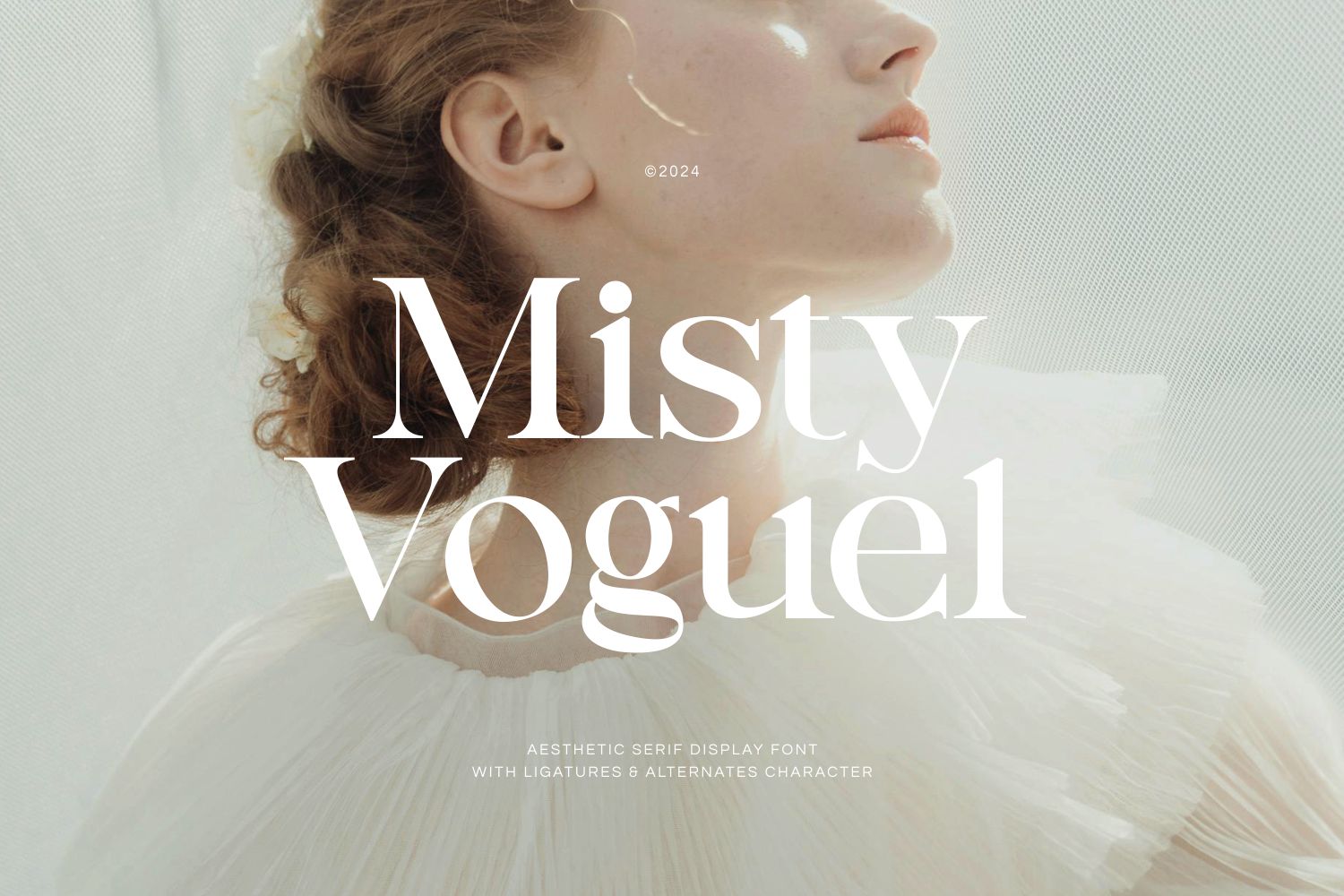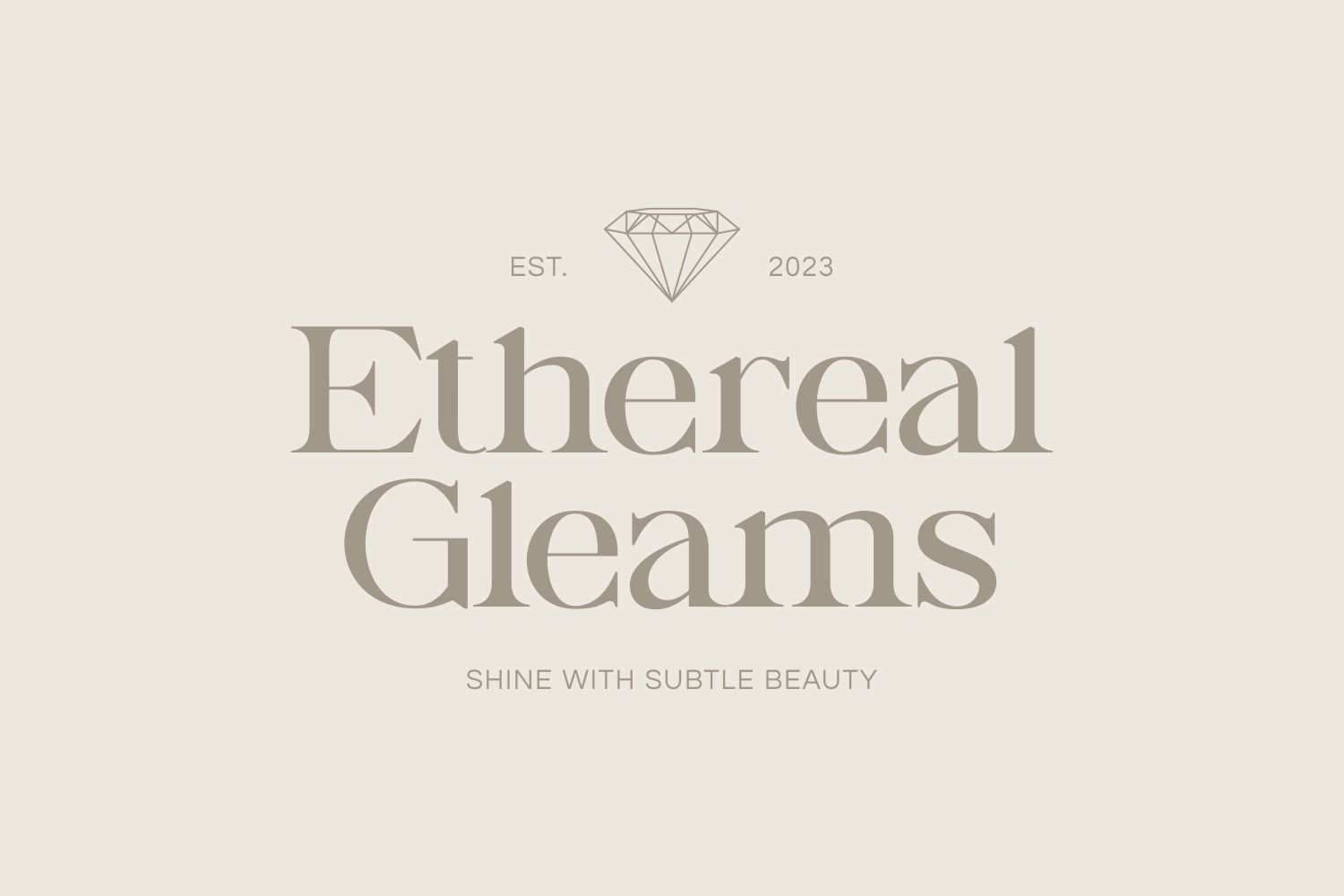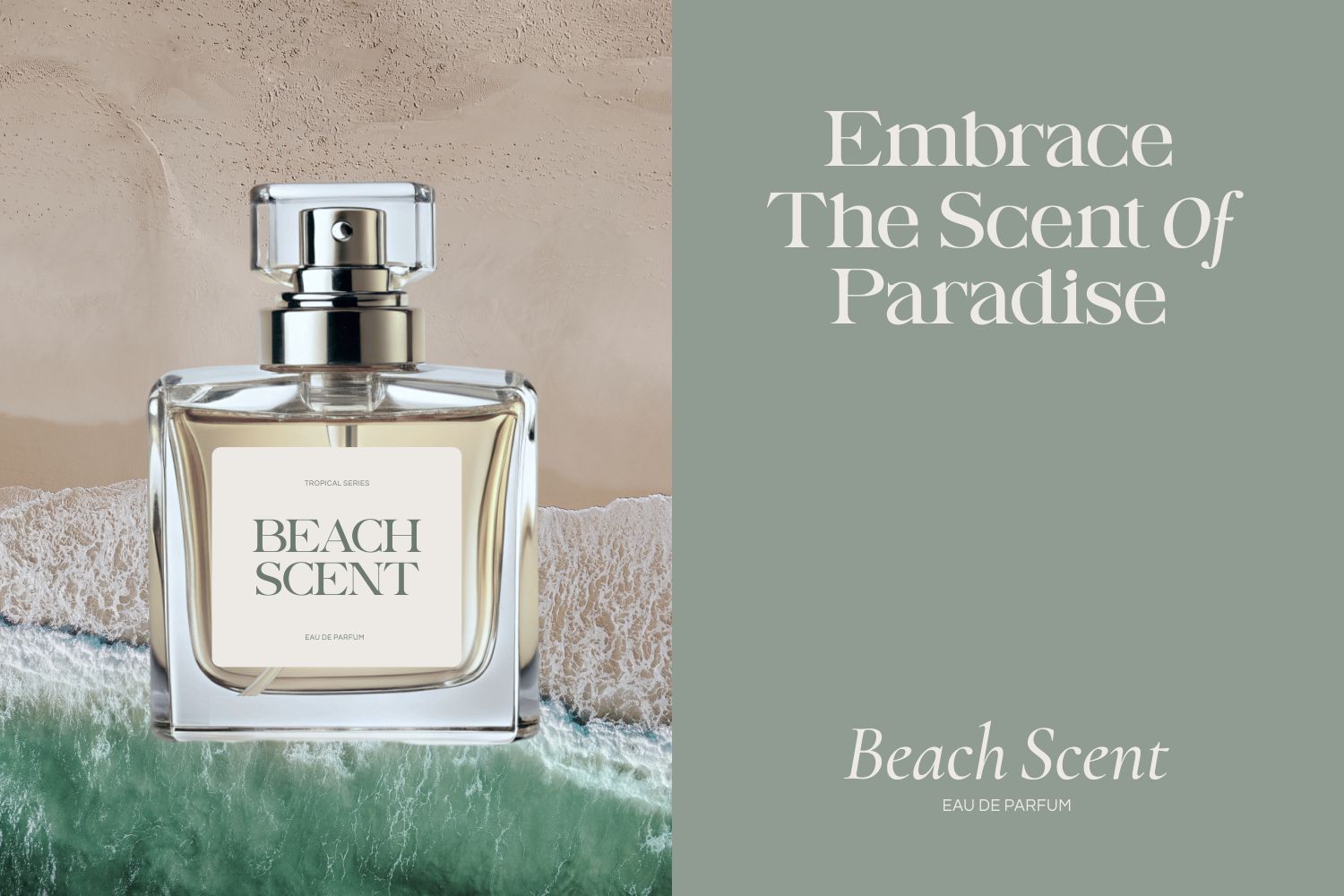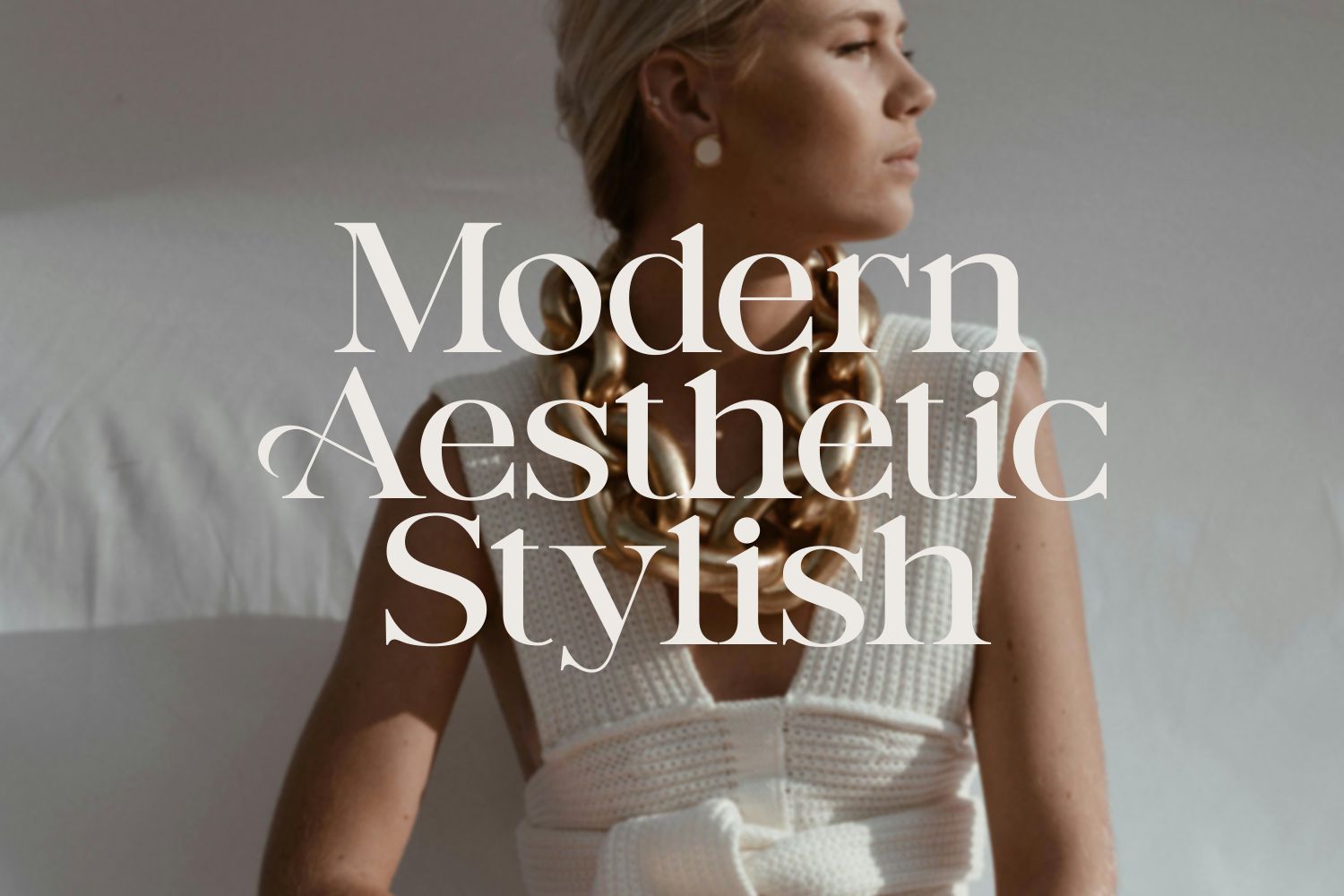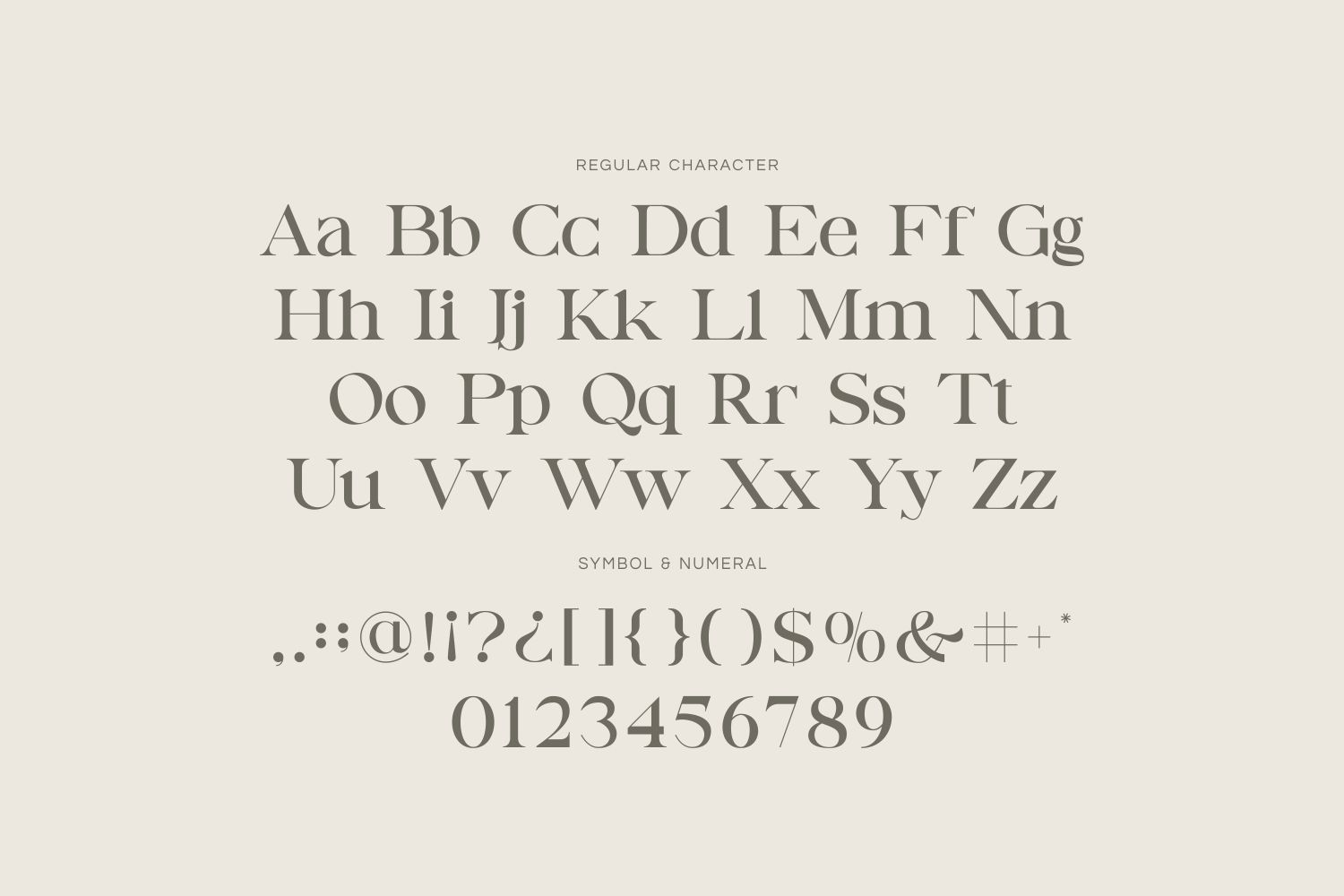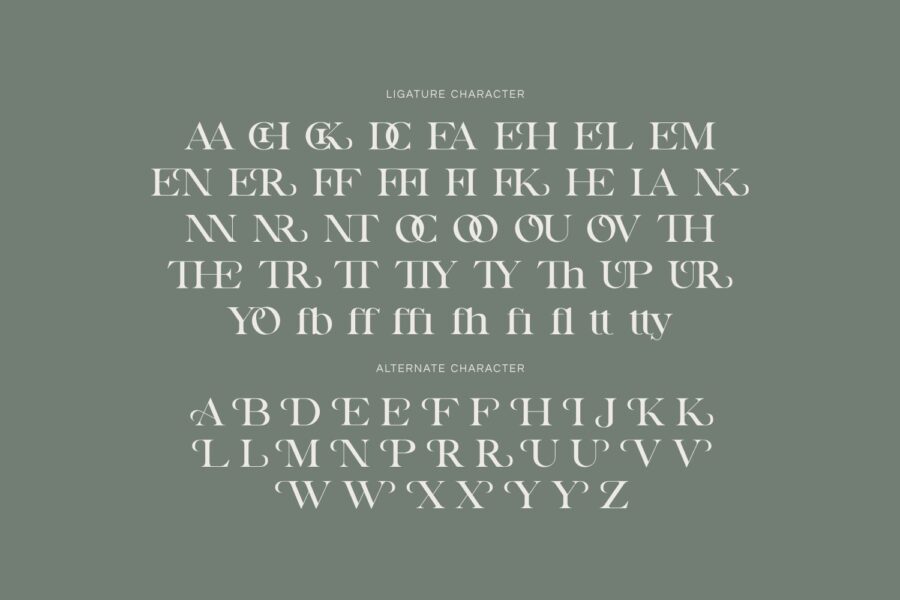
Misty Voguel is an elegant serif display font that blends timeless sophistication with a modern twist, perfect for high-end branding, editorial design, and luxury product packaging. Featuring sharp, refined serifs and graceful curves, it captures a sense of class and elegance that elevates any visual composition. The font includes a range of ligatures and alternate characters, allowing for creative flexibility and a unique typographic presence in every project.
Designed for versatility, Misty Voguel shines in both large display headlines and refined body text. Its stylish letterforms work seamlessly across fashion campaigns, beauty product labels, lifestyle magazines, and upscale logos. With a harmonious balance between contemporary aesthetics and classic charm, it offers designers the tools to craft layouts that exude sophistication, refinement, and artistry.